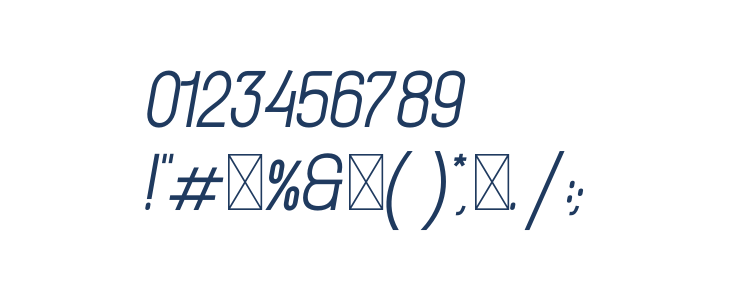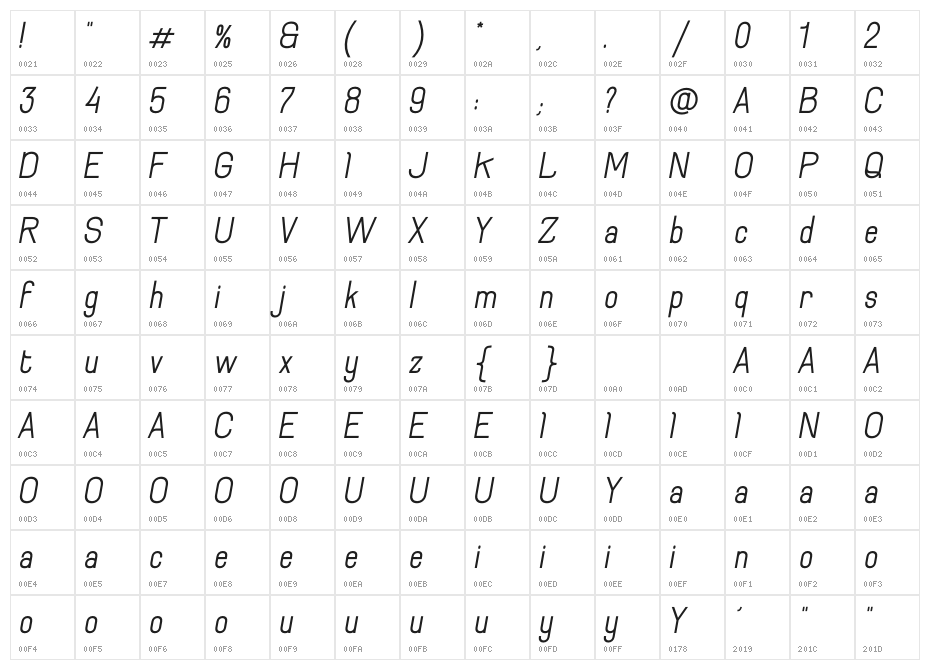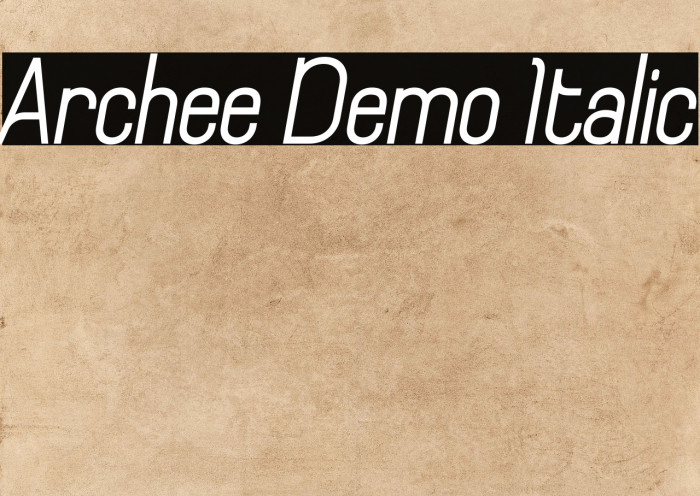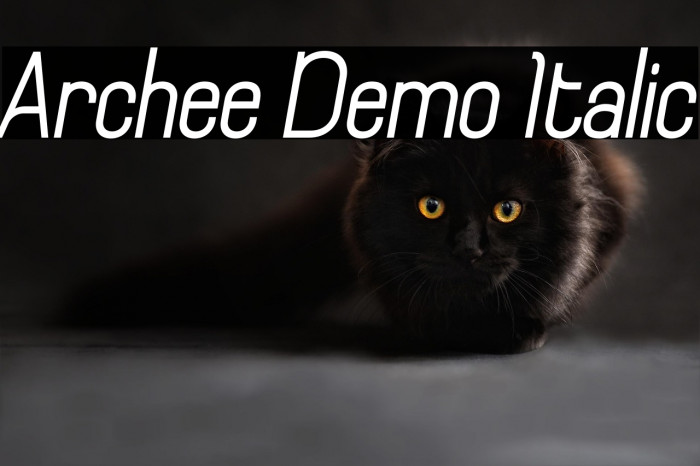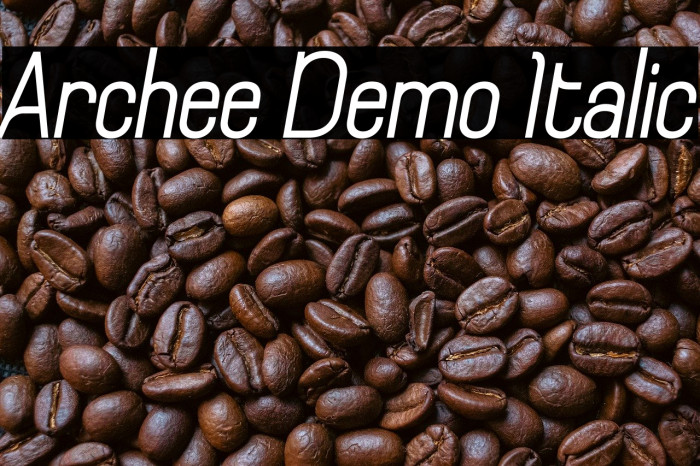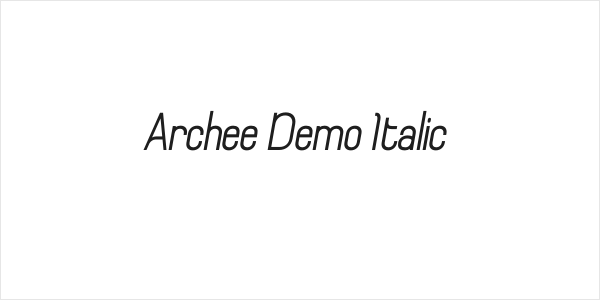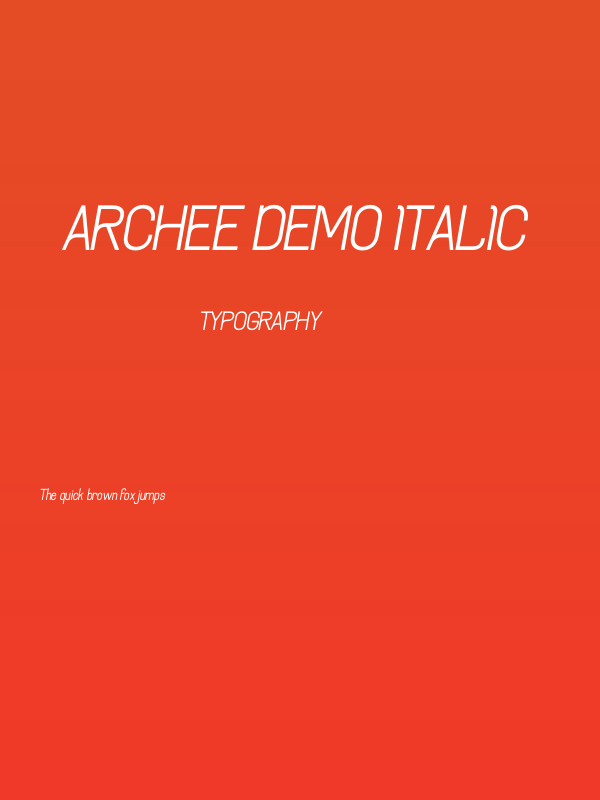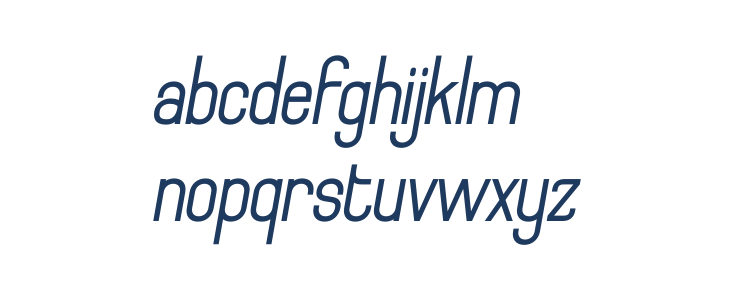
Archee Demo Italic Font
Archee Demo Italic Description
This font features a sleek and modern design with a distinct italic slant, giving it a dynamic and forward-moving appearance. The characters are uniformly styled with a consistent stroke width, providing a clean and streamlined look. The uppercase and lowercase letters maintain a harmonious balance, while the numerals and special characters are crafted to match the overall aesthetic. The font's design is versatile, making it suitable for a variety of applications where a contemporary and elegant touch is desired.
| Proposed Projects | Ideal for branding, advertising, and editorial design projects that require a modern and sophisticated look. |